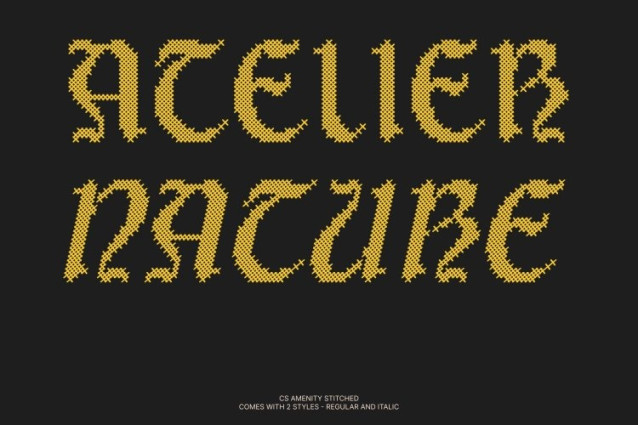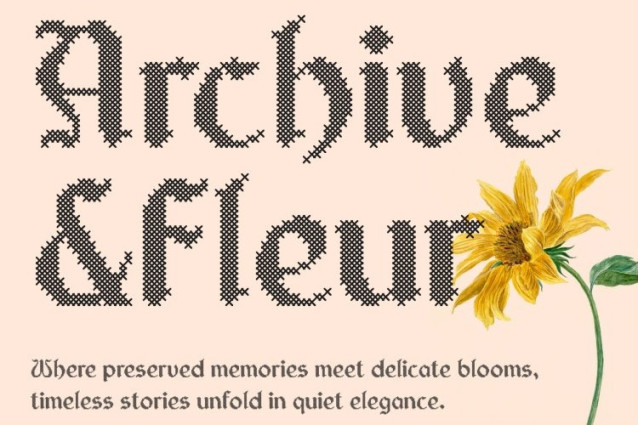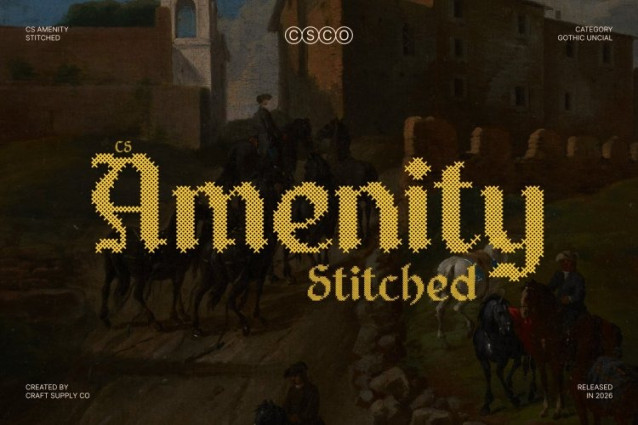
CS Amenity Stitched Font
CS Amenity Stitched Font is a display font that beautifully merges the flowing curves of Uncial lettering with the bold, structured elements of Gothic typography. Inspired by medieval manuscripts and historical calligraphy, it features rounded letterforms, strong strokes, and ornamental flourishes that create a striking balance between elegance and strength.
Embossed Stitch Texture with Nostalgic Warmth
A distinctive cross-shaped stitch pattern adds an embossed and structured texture to each letterform, giving a tactile, fabric-like appearance. This stitched detailing brings a classic, nostalgic, relaxed, and warm impression, softening the dramatic Gothic structure while preserving its powerful visual presence.
Mystical and Timeless Aesthetic
With intricate detailing and medieval charm, this font evokes the atmosphere of ancient scrolls, illuminated manuscripts, and mythological inscriptions. The combination of elegant curves, Gothic influence, and stitched texture creates a font that feels both mystical and expressive perfect for designs that aim to capture a sense of history, legend, and storytelling.
Perfect for Fantasy, Historical, and Craft-Inspired Designs
This is ideal for fantasy-themed branding, historical book covers, medieval-inspired posters, mythology artwork, and immersive storytelling projects such as games or film titles. The stitched texture also makes it suitable for invitations, clothing logos, craft-themed designs (DIY), and creative branding that seeks a distinctive, textured aesthetic.